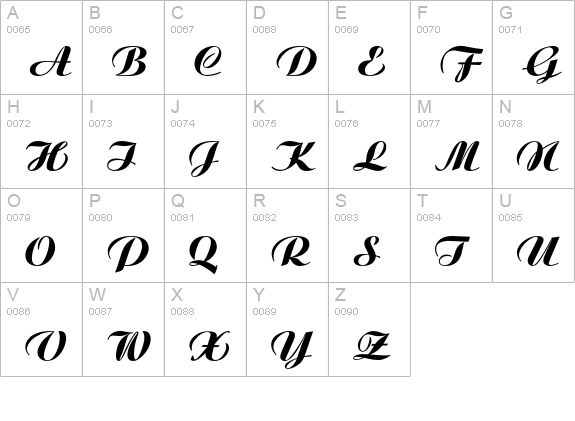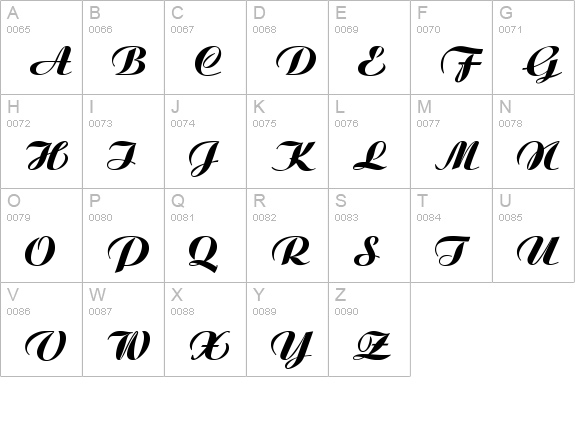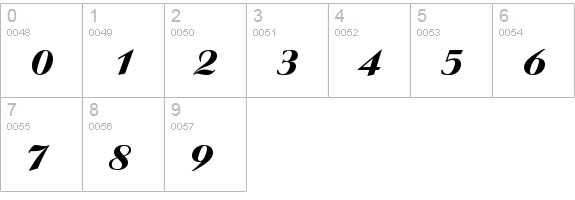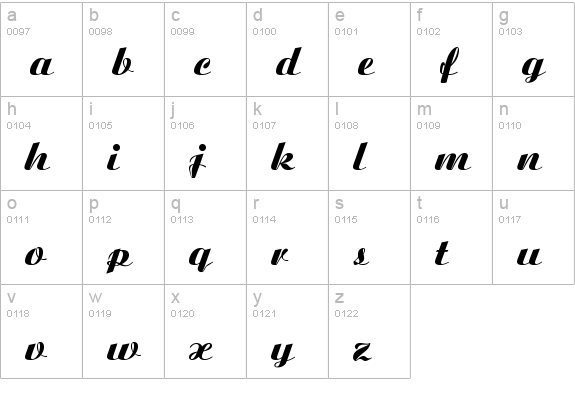
Introducing Ariston Extra font, a beautifully crafted typeface that exudes elegance and sophistication. This versatile font is perfect for a wide range of design projects, from branding to editorial design. With its unique serifs and clean lines, Ariston Extra commands attention and adds a touch of refinement to any project. What sets Ariston Extra font apart is its seamless blend of classic and modern elements, making it a timeless choice for designers looking to elevate their work. Whether you're creating a logo, packaging design, or website, Ariston Extra font will bring a touch of class to your project. The best part? Ariston Extra font is available for free download at FontsMarket.com, making it accessible to designers of all levels. Don't miss out on the opportunity to add this stunning font to your collection and take your designs to the next level with Ariston Extra.